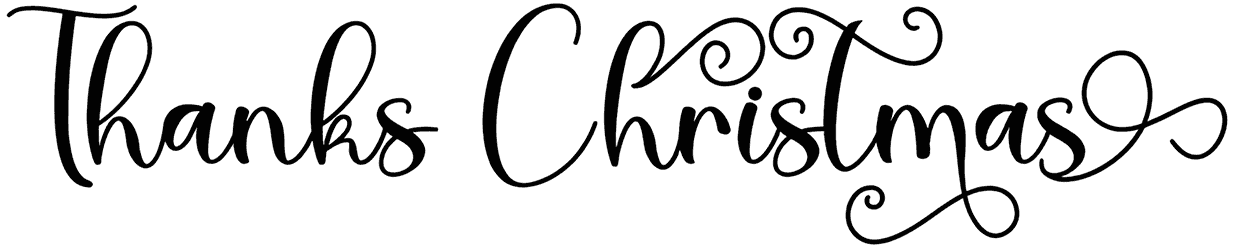
Thanks Christmas Font
Do you want to bring an aesthetic calligraphy font into your upcoming design? Here is Thanks to Christmas for you in a realistic hand-drawn style. It is sweet, fresh, and lovely, which comes with uppercase and lowercase…
Do you want to bring an aesthetic calligraphy font into your upcoming design? Here is Thanks to Christmas for you in a realistic hand-drawn style. It is sweet, fresh, and lovely, which comes with uppercase and lowercase letters, numbers, and some punctuation.
This Christmas font will give your work a friendly touch with extra charms. It works well for designing greeting cards, romantic concepts, movie posters, book covers, and planner prints. Cheers!